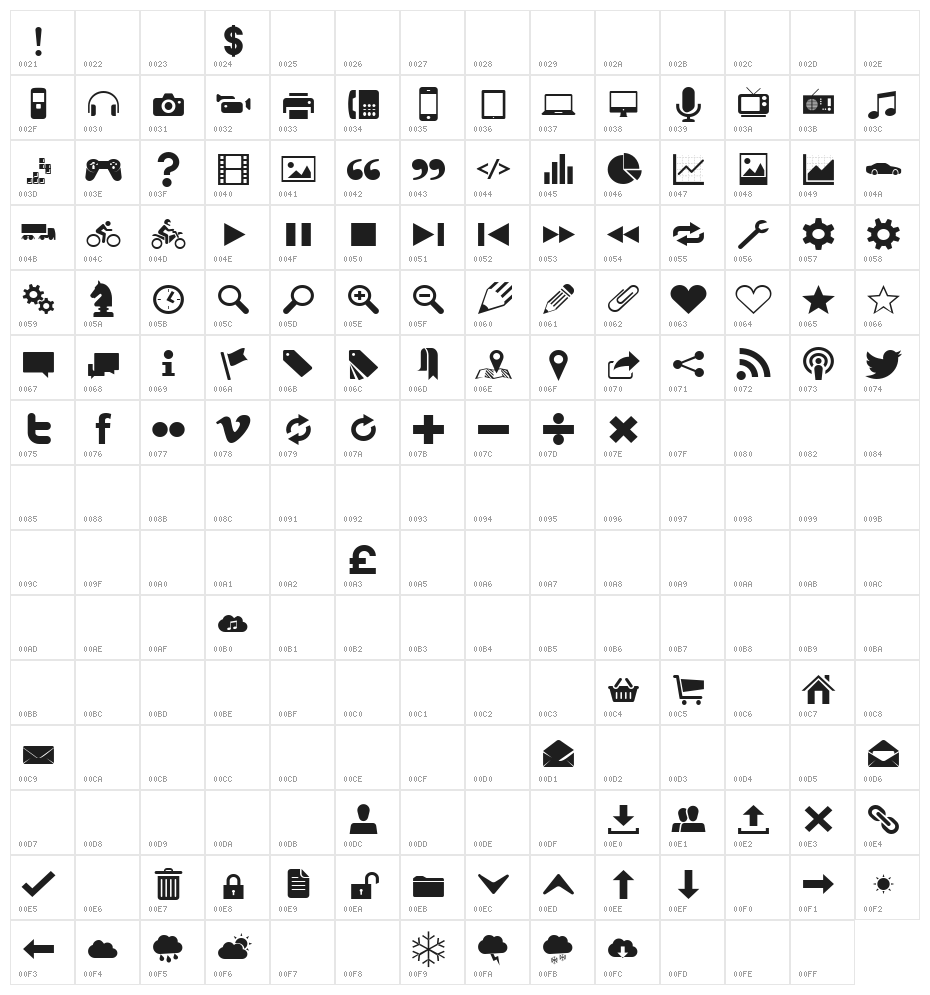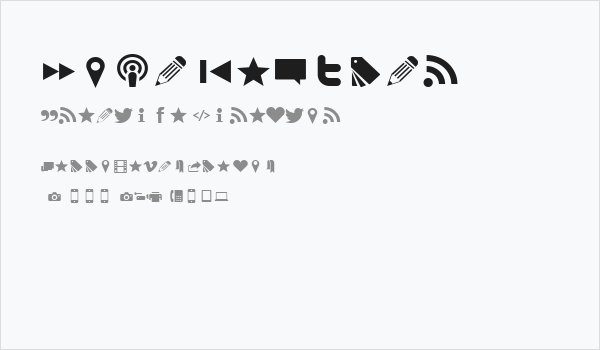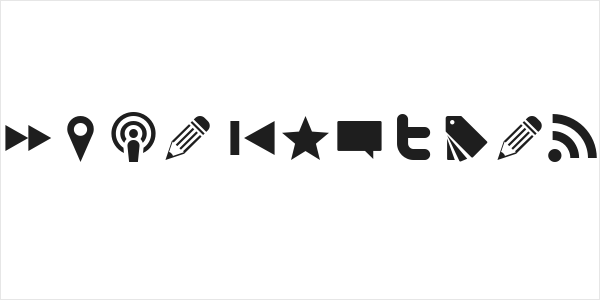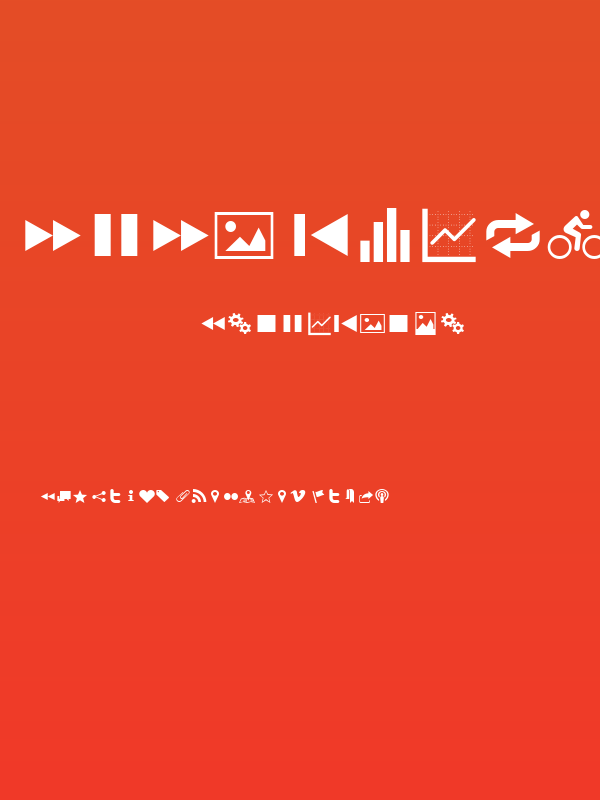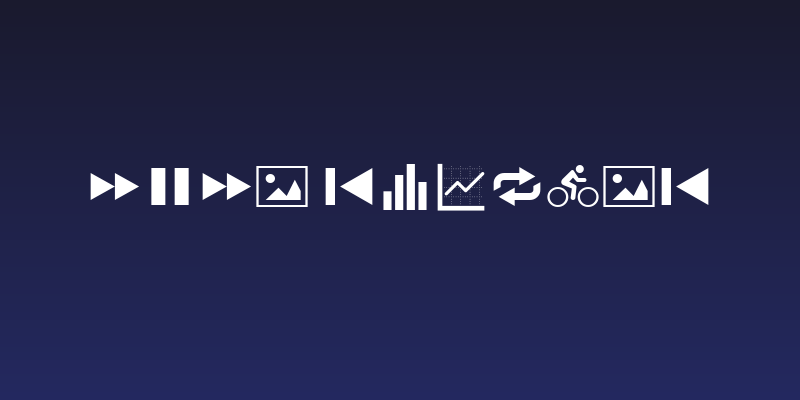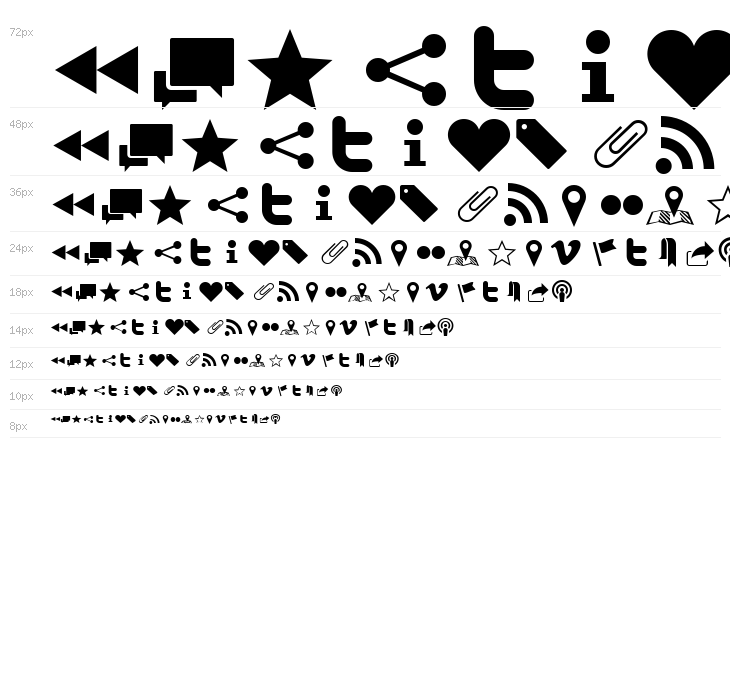
Sosa Regular Font
Sosa Regular Description
A collection of bold, geometric, and highly legible pictograms and icons, featuring solid fills and minimal detail, designed for universal clarity and quick recognition across digital interfaces.
| Overall Style | Modern, Minimalist |
| Use Case | Icons, UI elements, infographics, signage |
| Proposed Projects | User interfaces, mobile apps, web design, infographics, signage, dashboards. |